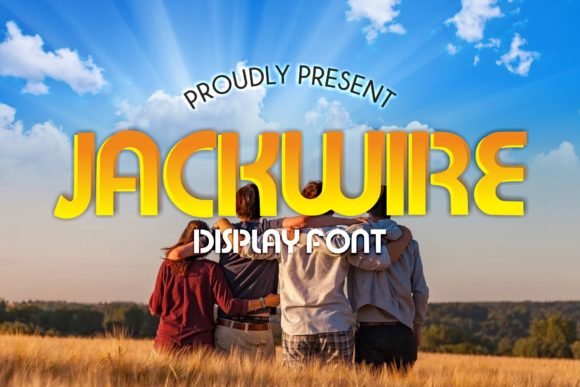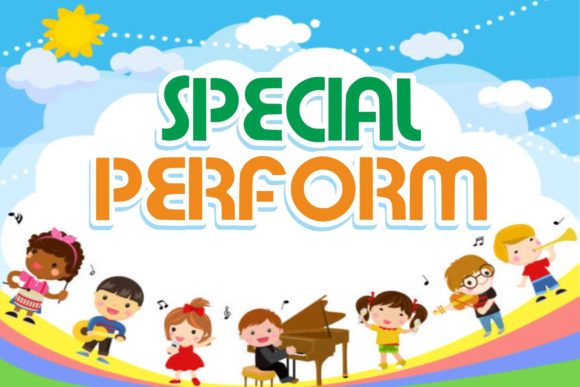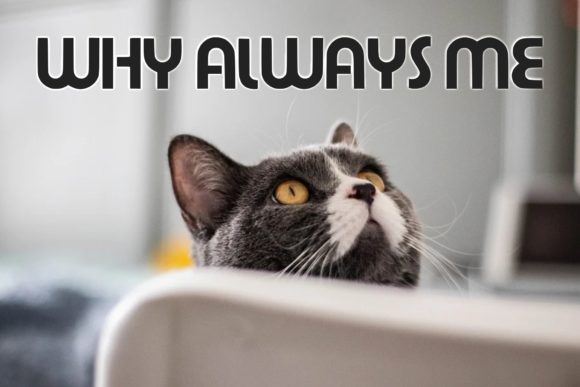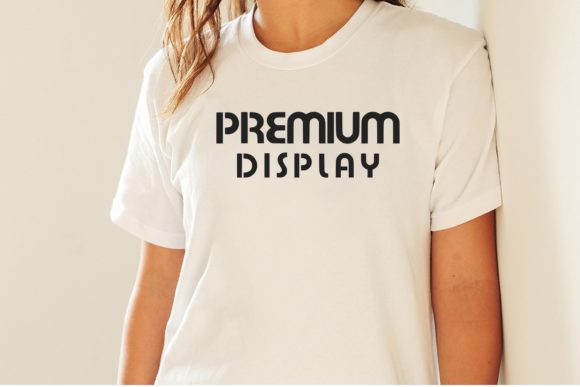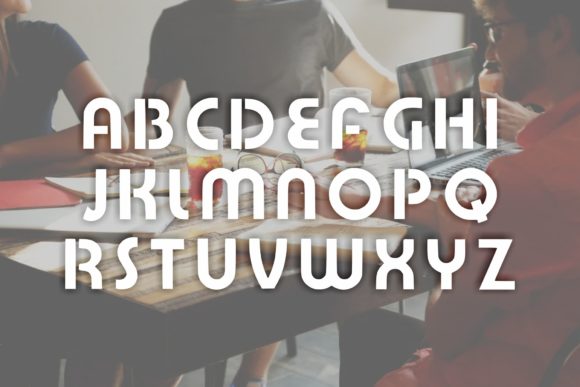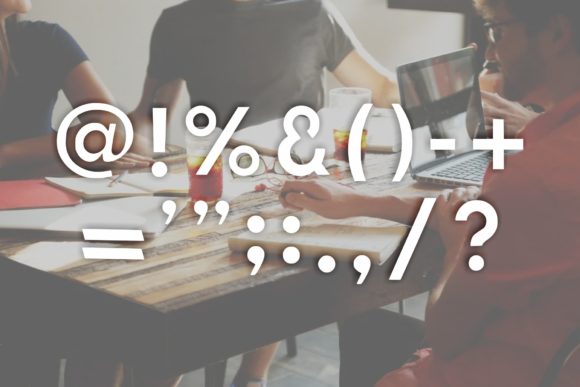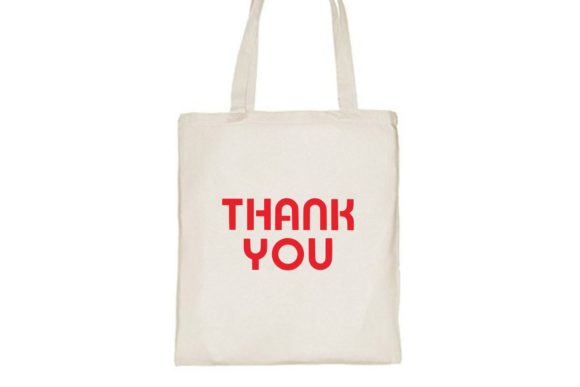
Unleash Your Creativity with the Perfect Font
Do you remember the thrill of creating something new, and the world suddenly comes alive with possibilities? Perhaps it’s the rush of excitement as you experiment with colors, textures, and typography. Whatever sparks your creative flame, one thing is certain – a great font can make all the difference. And that’s exactly where the Jackwire Font comes in – a vibrant display font designed to add drama and flair to your creations.
Whether you’re crafting a bold title, highlighting a key message, or simply adding some visual interest, the Jackwire Font is the perfect tool for the job. With its exclusive design, this font is sure to elevate your work and leave a lasting impression. As a valuable asset to your font library, the Jackwire Font has the potential to enhance any project, making it a must-have for designers looking to take their work to the next level.
Jackwire Font Key Features
- Unique Characteristics: The Jackwire font features a unique blend of modern and vintage elements, with bold lines, geometric shapes, and a mix of uppercase and lowercase letters.
Designer Review: Jackwire Font
Overall, I’m quite pleased with the Jackwire Font. ✨ It has a certain edgy vibe that can add a lot of character to a design project. The font is modern, yet retro-futuristic, which makes it a great choice for anything from sci-fi themed projects to industrial-inspired designs.
The Jackwire Font is highly customizable, with a wide range of font weights and styles to choose from. ✨ This makes it easy to adjust the font to fit the specific needs of your project, whether you’re looking for something bold and eye-catching or subtle and understated.
- ⚠️ Limited support for certain languages: The Jackwire Font is primarily designed for Latin-based languages, and support for non-Latin languages is limited.
- ⚠️ Some characters may not display properly: I’ve noticed that certain characters, such as Cyrillic or Chinese characters, may not display correctly in certain contexts.
Despite these limitations, I think the Jackwire Font is a great choice for designers looking for a unique and versatile font. With a little experimentation and patience, you can achieve some really impressive results with this font.
Getting the Most Out of Jackwire Font
For optimal results, use Jackwire Font in conjunction with bold, italic, or underlined text to create visually appealing contrasts.
Pair Jackwire Font with other fonts to create a harmonious and balanced visual effect.
Jackwire Font is ideal for:
– Creative designs and artwork
– Branding and marketing materials
– Digital signage and displays
– Print materials and brochures
– Social media graphics and ads